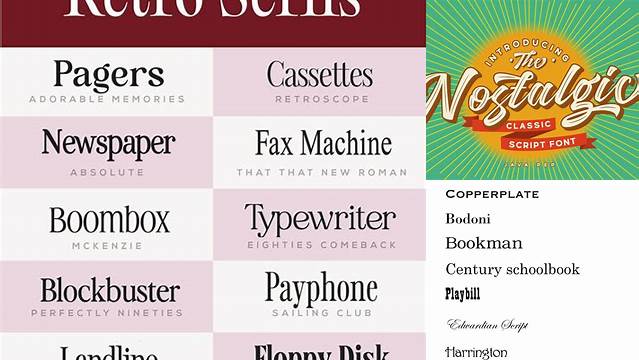
Old Microsoft Word Fonts: Generate & Download Classics
Are you a design enthusiast looking to revive the charm of old Microsoft Word fonts? Or perhaps a writer aiming to infuse your documents with a touch of nostalgia? You've come to the right place! In this article, we'll dive deep into the world of old Microsoft Word fonts, exploring their history, significance, and how you can use them today. We'll also touch upon the concept of an "old Microsoft Word fonts generator" – what it might entail, and how you can achieve similar results through readily available tools and resources. So, buckle up, guys, as we embark on this typographic time travel!
The Allure of Vintage Word Fonts
Before we delve into the specifics, let's talk about why old Microsoft Word fonts hold such appeal. For many, these fonts are more than just letterforms; they're visual time capsules, evoking memories of early computing, school projects, and the nascent days of digital typography. Think back to the late 80s and 90s, when personal computers were becoming mainstream. Microsoft Word was the go-to word processor, and its default fonts shaped the way we communicated in the digital realm. Fonts like Times New Roman, Arial, Courier New, and Comic Sans (yes, even Comic Sans!) were ubiquitous, defining the aesthetic of countless documents, reports, and presentations.
The charm of these fonts lies in their simplicity and functionality. They were designed to be legible on low-resolution screens and to print well on dot-matrix printers – constraints that modern fonts rarely face. This practicality, however, gave them a distinct character, a certain rawness and authenticity that's hard to replicate with today's sleek and polished typefaces. Furthermore, these fonts carry a strong association with a particular era. Using them can instantly transport your audience back in time, adding a layer of vintage appeal to your projects. Imagine a flyer for a retro-themed party typeset in Courier New, or a historical novel with chapter headings in a classic serif font – the effect can be quite powerful. So, whether you're aiming for authenticity, nostalgia, or simply a unique aesthetic, old Microsoft Word fonts offer a rich palette to explore.
Understanding the "Old Microsoft Word Fonts Generator" Concept
Now, let's address the idea of an "old Microsoft Word fonts generator." While there isn't a single, dedicated tool that magically transforms text into a perfect replica of old Word fonts, the concept points to a desire for easy access to these classic typefaces. In essence, what people are often looking for is a way to quickly identify, download, and use fonts that resemble those found in older versions of Microsoft Word. This might involve searching for font files online, using font identification tools to match a particular style, or exploring font libraries that offer vintage-inspired typefaces. The good news is that achieving this is entirely possible, thanks to the abundance of resources available online. Many websites offer free font downloads, including faithful reproductions of classic Microsoft Word fonts. Font identification tools can help you pinpoint a specific typeface if you have an image or sample text. And if you're looking for something slightly different but still within the vintage aesthetic, font foundries and marketplaces offer a wide array of fonts inspired by the typography of the past. So, while a dedicated "generator" might not exist, the tools and resources to create the same effect are readily at your fingertips. You just need to know where to look and how to use them, which we'll cover in the next sections.
Finding and Using Classic Microsoft Word Fonts
So, where do you start your quest for classic Microsoft Word fonts? The first step is to identify the fonts you're looking for. As we mentioned earlier, some of the most popular include Times New Roman, Arial, Courier New, Garamond, and Comic Sans. You might also remember fonts like Wingdings and Symbol, which, while not traditional text fonts, were commonly used for creating symbols and icons in older documents. Once you have a list of fonts in mind, you can begin your search. A simple Google search for "free font downloads" will yield countless results. Websites like DaFont, FontSpace, and 1001 Free Fonts are excellent starting points, offering a vast collection of fonts, including many that closely resemble classic Microsoft Word typefaces. When downloading fonts, be sure to check the licensing terms to ensure they're suitable for your intended use (personal or commercial). Most font websites clearly indicate the license type for each font. Once you've downloaded a font, installing it is usually straightforward. On Windows, you can simply right-click the font file and select "Install." On macOS, you can double-click the font file and then click "Install Font" in the Font Book application. After installation, the font should be available for use in Microsoft Word and other applications on your computer. If you're having trouble identifying a particular font, font identification tools can be a lifesaver. Websites like WhatTheFont! and Font Squirrel's Font Identifier allow you to upload an image of text, and they'll analyze the image and suggest potential matches. This can be incredibly helpful if you've seen a font in an old document or website and want to use it in your own projects.
Exploring Alternatives and Vintage-Inspired Fonts
While using the exact fonts from old versions of Microsoft Word can be a fun and nostalgic exercise, it's also worth exploring alternatives and vintage-inspired fonts. The world of typography is vast and diverse, and there are countless typefaces that capture the essence of classic styles while offering a fresh and modern twist. For example, if you love the classic serif look of Times New Roman but want something slightly more refined, you might consider fonts like Lora or Merriweather. These fonts offer similar readability and elegance but with subtle differences that can elevate your design. If you're drawn to the monospaced charm of Courier New, try exploring alternatives like Roboto Mono or Source Code Pro. These fonts are specifically designed for coding and technical documentation, but their clean and legible forms can also work well in other contexts. And if you're looking for a sans-serif alternative to Arial, fonts like Open Sans and Lato offer a more contemporary and versatile feel. In addition to these alternatives, many font foundries and marketplaces offer fonts that are specifically designed to evoke a vintage aesthetic. These fonts often draw inspiration from historical typefaces, such as those used in old newspapers, posters, and books. Websites like MyFonts and Creative Market are excellent resources for discovering these kinds of fonts. When choosing a vintage-inspired font, consider the overall tone and message you want to convey. Different fonts can evoke different eras and styles, so it's important to select one that aligns with your project's aesthetic. For example, a font with strong Art Deco influences might be perfect for a 1920s-themed design, while a font with a mid-century modern vibe would be better suited for a 1950s-inspired project. Remember, the goal is not just to replicate the look of old Microsoft Word fonts, but to use typography to enhance your message and create a visually compelling experience.
Tips for Using Old Fonts Effectively
Using old fonts effectively requires a bit of finesse. While these fonts can add a touch of nostalgia and character to your designs, they can also look dated or out of place if not used carefully. Here are a few tips to help you make the most of them: * Context is key: Consider the overall tone and style of your project. Old fonts work best in designs that have a vintage or retro theme. Using them in a modern, minimalist design might feel jarring. * Pair wisely: Choose complementary fonts that work well with your vintage typeface. A classic serif font like Times New Roman might pair well with a clean sans-serif font like Helvetica or Arial. Avoid using too many different fonts in a single design, as this can create a cluttered and confusing look. * Pay attention to spacing and kerning: Proper spacing and kerning are essential for readability. Adjust the spacing between letters and words to ensure that your text is easy to read. * Use sparingly: Don't overuse old fonts. A little can go a long way. Use them for headings, subheadings, or short blocks of text, rather than for entire paragraphs. * Consider the medium: Think about how your design will be displayed or printed. Some old fonts may not render well on low-resolution screens or when printed at small sizes. * Embrace imperfections: Part of the charm of old fonts is their imperfections. Don't try to make them look too perfect or polished. Let their natural character shine through. By following these tips, you can effectively incorporate old Microsoft Word fonts into your designs and create visually appealing and memorable projects. Remember, typography is a powerful tool, and choosing the right font can make a big difference in how your message is received. So, go ahead and experiment with these classic typefaces, and see how they can add a unique touch to your work.
Conclusion: The Enduring Legacy of Old Word Fonts
In conclusion, the allure of old Microsoft Word fonts lies in their ability to transport us back in time, evoking memories of early computing and the evolution of digital typography. While a dedicated "old Microsoft Word fonts generator" might not exist, the resources and tools available online make it easy to find, download, and use these classic typefaces. Whether you're aiming for nostalgia, authenticity, or simply a unique aesthetic, these fonts offer a rich palette to explore. By understanding their history, significance, and how to use them effectively, you can add a touch of vintage charm to your designs and create visually compelling projects. So, go ahead, guys, embrace the legacy of old Word fonts, and let your creativity flow! Remember, typography is more than just choosing a font; it's about communication, expression, and connecting with your audience on a deeper level. And sometimes, the best way to connect is to look back at the classics and rediscover the timeless beauty of vintage typography.